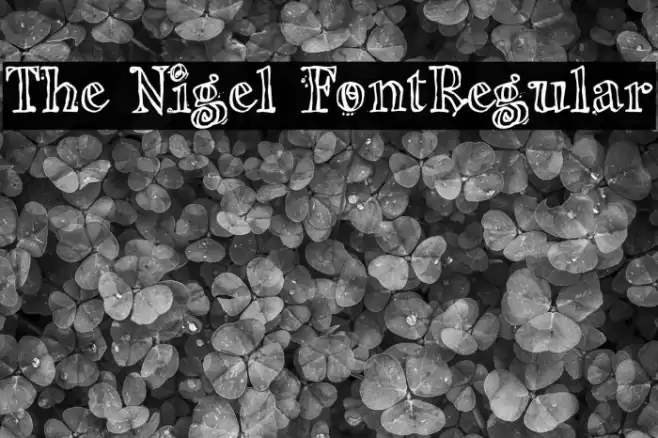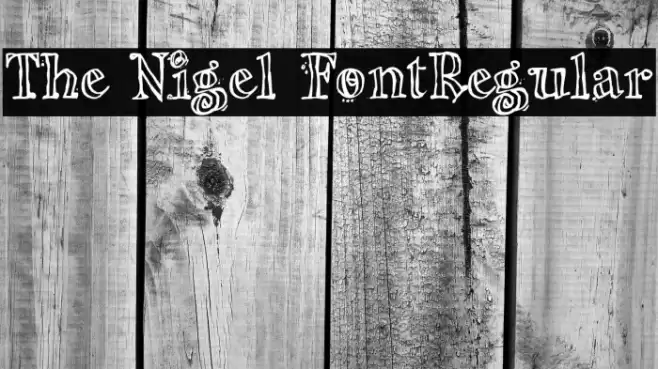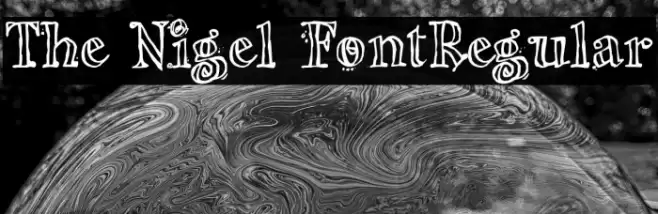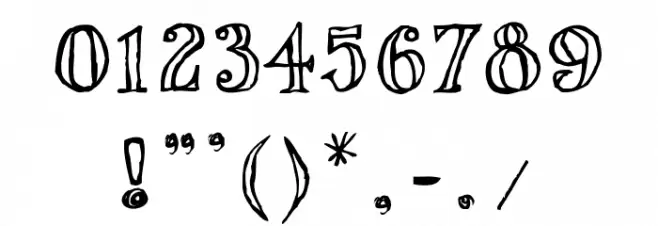
The Nigel FontRegular Font
The Nigel FontRegular Description
This font features a whimsical and playful design with a decorative flair. The characters are embellished with unique, artistic elements such as dots and swirls, giving it a hand-drawn appearance. The uppercase letters are bold and eye-catching, while the lowercase letters maintain a consistent style with slight variations in stroke width. Numbers and special characters follow the same decorative theme, making the font suitable for creative and artistic projects. The overall look is both quirky and elegant, making it stand out in any design.
A whimsical, decorative font with artistic embellishments and a hand-drawn feel from Cartoon fonts.
- Proposed Projects: Ideal for greeting cards, posters, children's books, and creative branding projects.